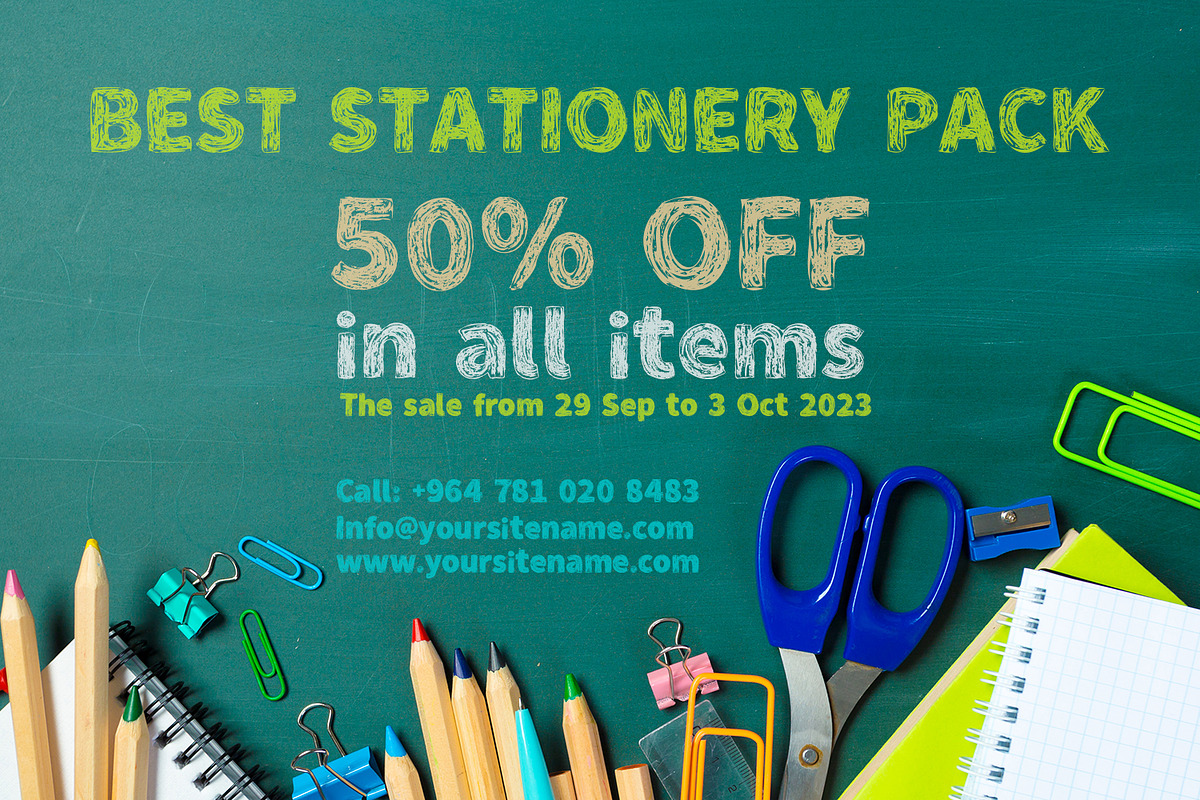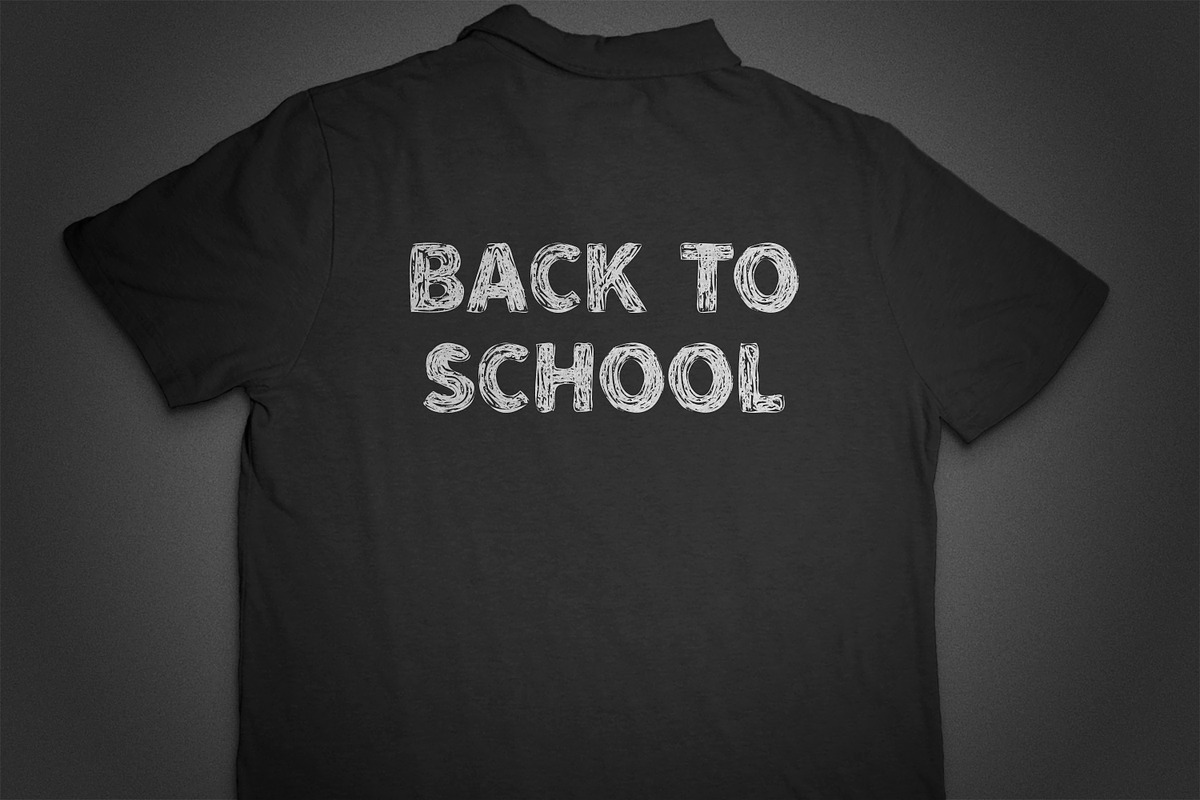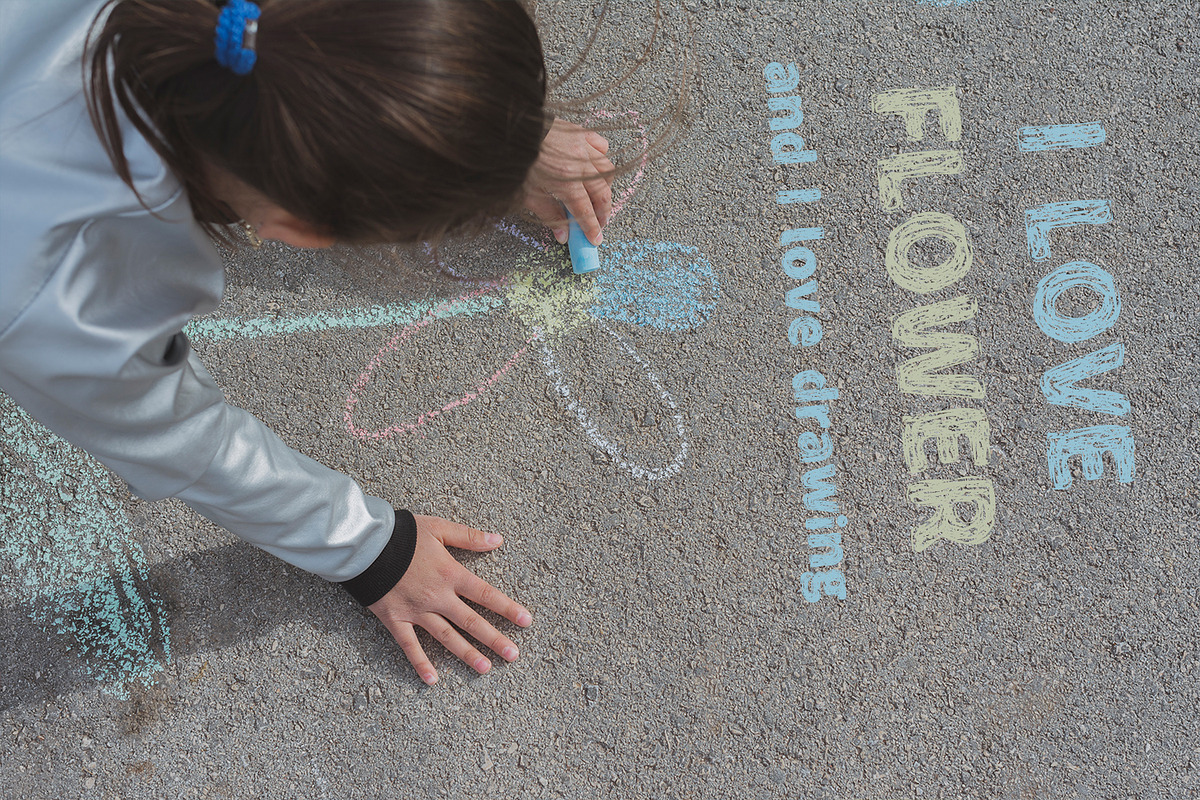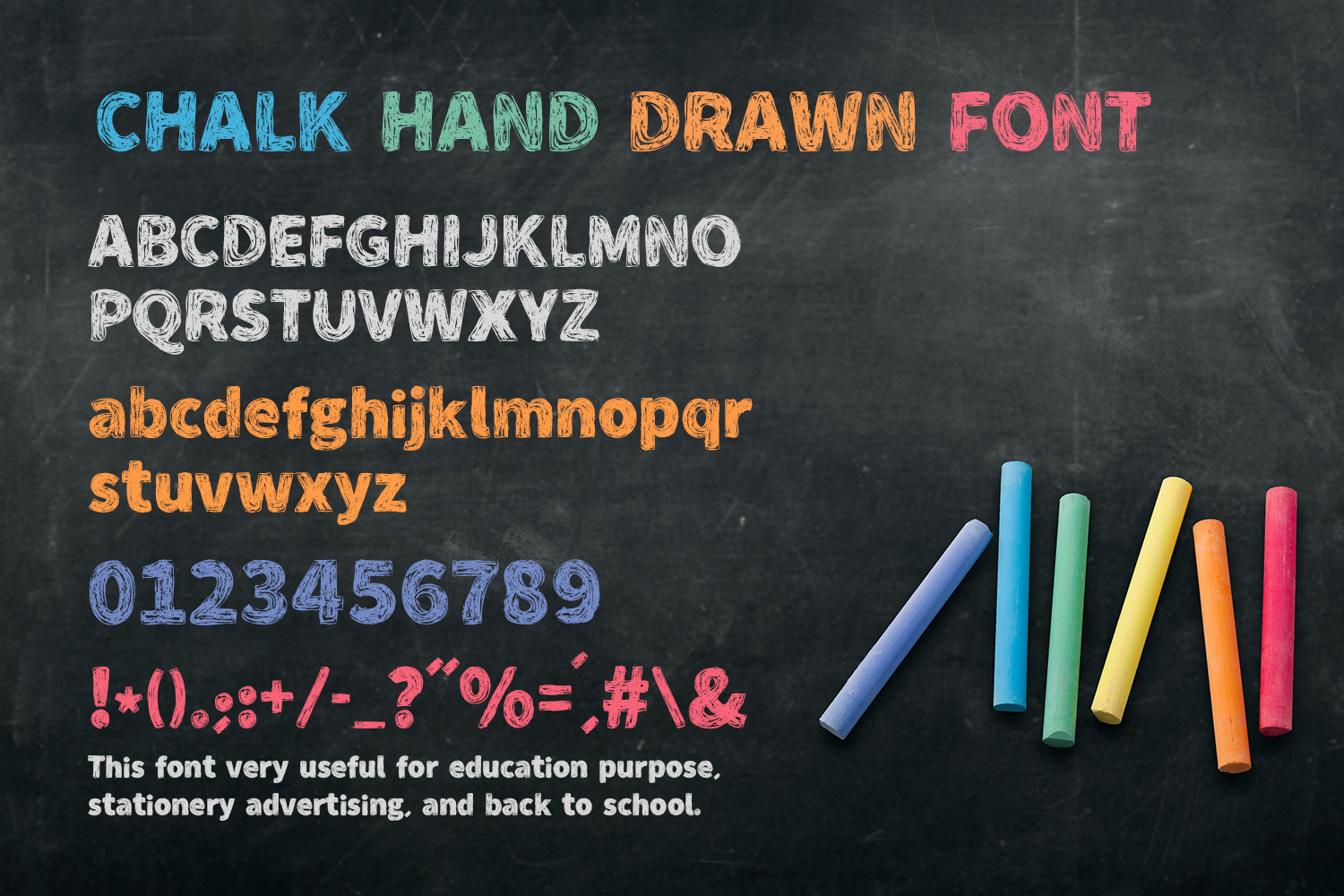
Chalk Hand Drawn Font
Chalk Hand Drawn is a great sketch display font. It’s suitable for chalk writing and it’s the perfect font for school-themed projects!